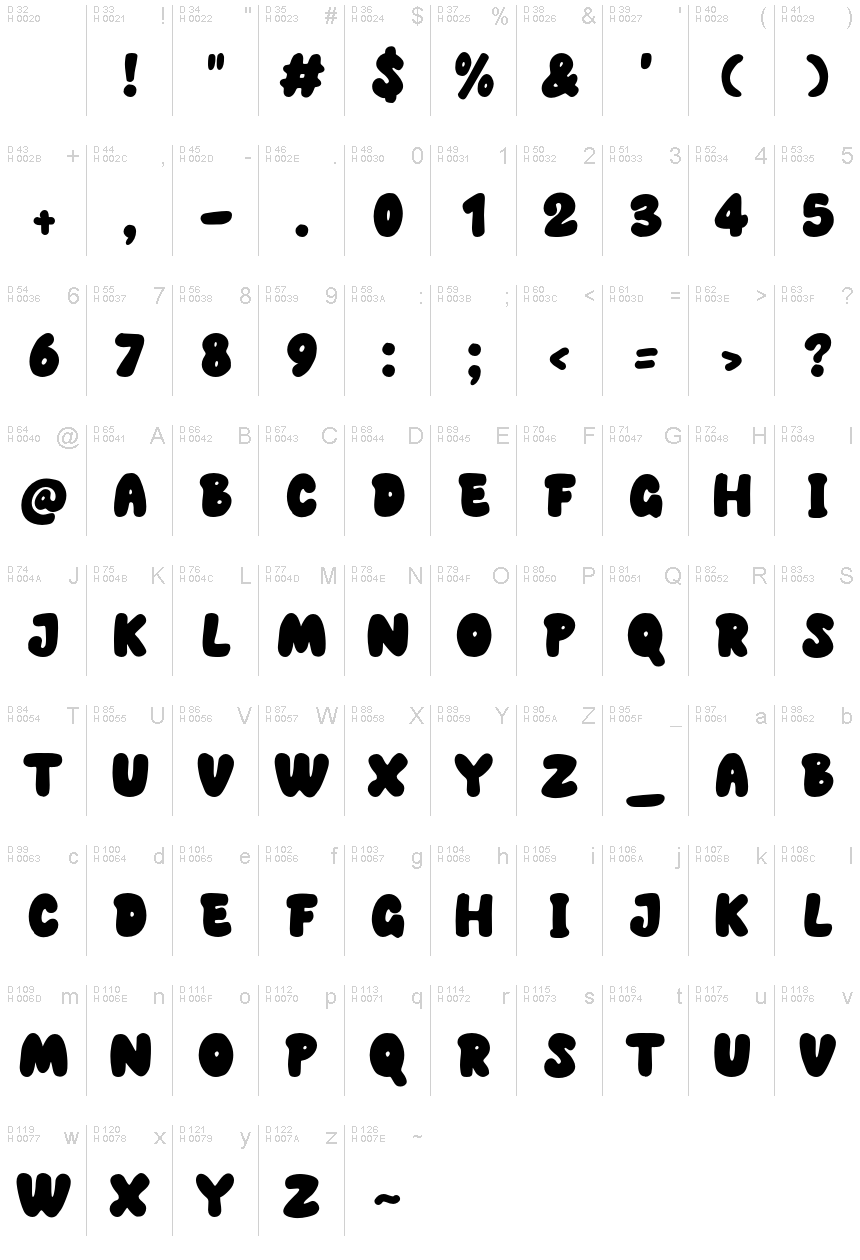
Star Work
Star Work font, crafted by MJType, is a bold display typeface that perfectly captures a whimsical cartoon style. Its chunky, rounded characters exhibit a playful design that is both captivating and distinctive. The exaggerated weight of the letters makes it an ideal choice for grabbing attention in titles and headings.
A free font download, Star Work is perfect for use in children's books, posters, and creative projects where a fun and inviting aesthetic is desired. Whether you're designing playful branding or eye-catching advertisements, this font ensures your message stands out. Embrace its charm to add a touch of personality to your work.